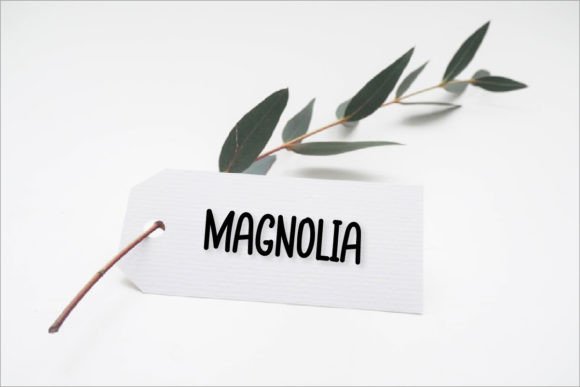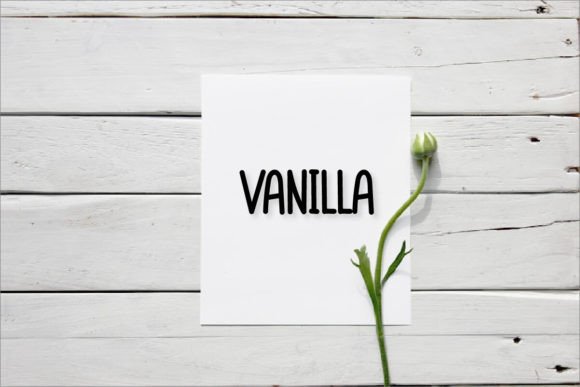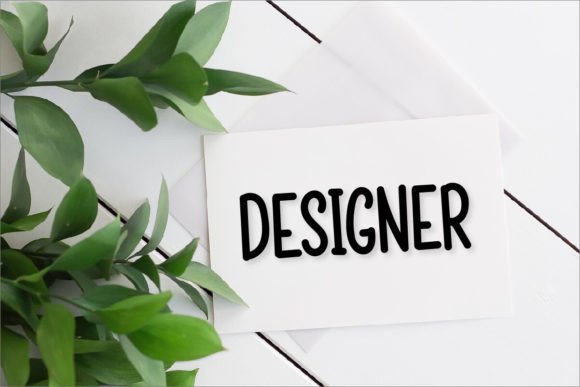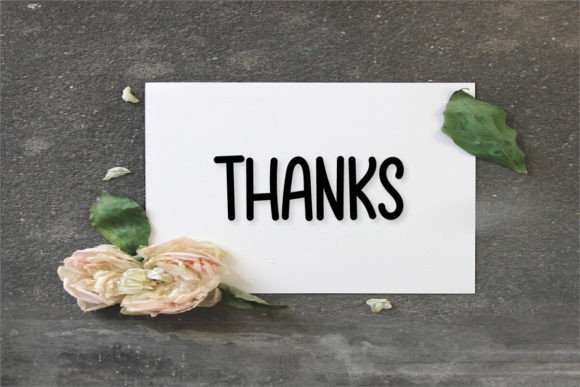
Introduction to Rabbit Story Font
Remember the moment when you’re working on a creative project, and you just can’t find the right font to bring your vision to life? You scroll through design resources, searching for the perfect fit, but nothing seems to match your style. That’s where the Rabbit Story Font comes in – a sweet and friendly handwritten font that’s about to become your new best friend.
With its natural and unique style, the Rabbit Story Font is incredibly versatile, making it a valuable addition to any designer’s toolkit. Whether you’re working on a branding project, creating a social media graphic, or designing a book cover, this font is sure to add a touch of warmth and personality to your work. And the best part? It’s available for a free download, so you can get creative without breaking the bank.
Key Features of Rabbit Story Font
- Unique and Whimsical Design: Rabbit Story Font is a high-quality design resource perfect for creative projects, offering a distinctive and playful touch.
Honest Review: Rabbit Story Font
I recently stumbled upon the Rabbit Story Font and I must say, it’s a delightful addition to my design library. The font is available for free download, which is a huge plus for designers on a budget. One of the standout features of this font is its high-quality design, making it perfect for creative projects where a unique touch is required.
Here are some of the things that work well for this font:
- ✨ Unique and playful design that’s perfect for children’s books, nursery decor, or any other project that requires a whimsical touch
- ✨ Transparent background, making it easy to customize and pair with other design elements
- ✨ High-quality design that’s crisp and clear, even at larger font sizes
- ⚠️ Limited character set, which may not be ideal for longer texts or formal documents
- ⚠️ Not suitable for professional or formal projects where a more traditional font is required
Overall, I’m quite impressed with the Rabbit Story Font and would definitely recommend it to designers looking for a fun and unique font for their creative projects. Just be aware of its limitations and use it accordingly.
Tips for Getting the Most Out of Rabbit Story Font
For the best results, pair the Rabbit Story Font with a simple background or image to let the font take center stage. Experiment with different font sizes and colors to create visually striking designs. Use the transparent background to add depth and interest to your designs.
Rabbit Story Font is perfect for creative projects, such as children’s book illustrations, graphic novels, or social media graphics. Its unique design and transparent background make it an ideal choice for designers looking to add a touch of whimsy to their work.